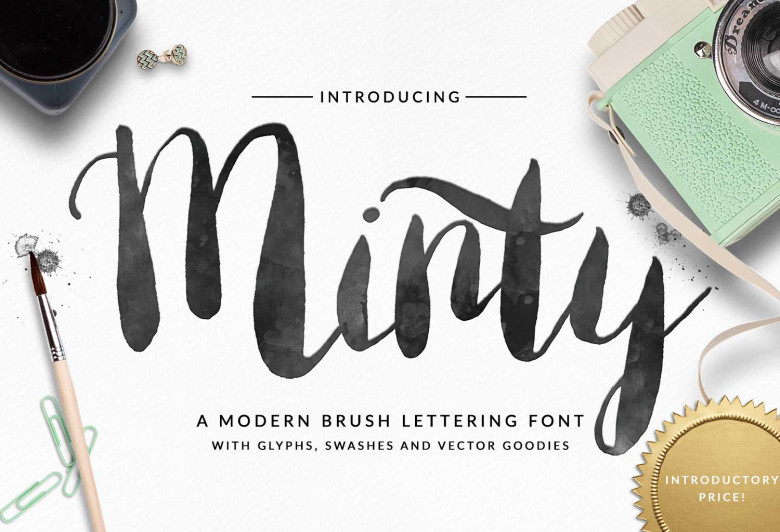
Minty Brush Font
Hi there! Let me introduce Minty – a brush letter typeface. Minty Brush font created with creative hand with given natural teksture make brush pen. This font is always exciting to design you create. This font are perfect for wedding postcard. Or you can create perfect and unique design of your logo, blog, stationery, marketing, magazines and more ?